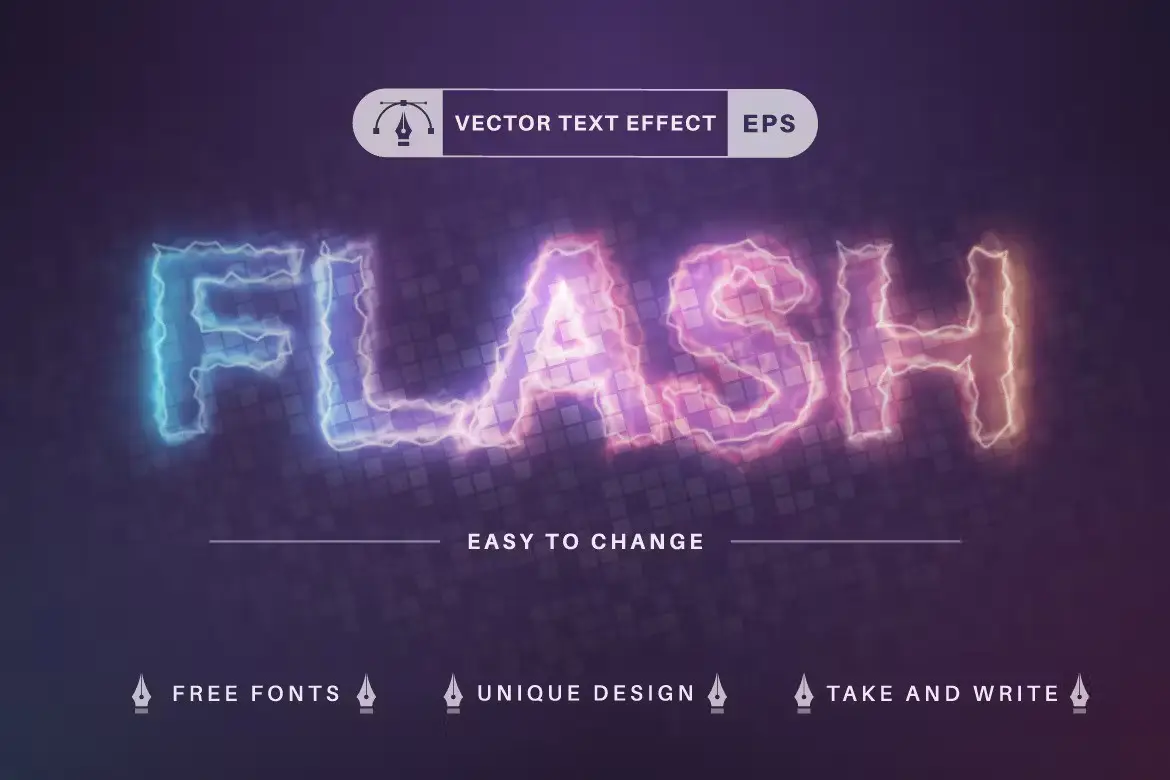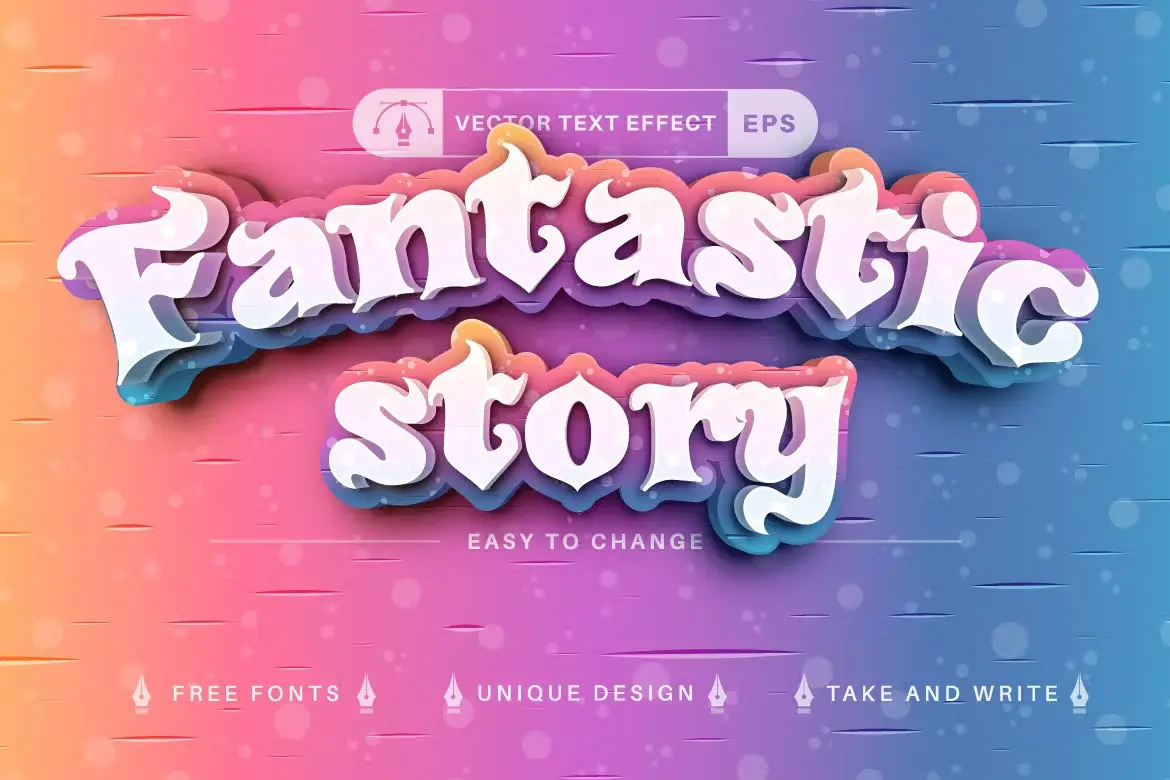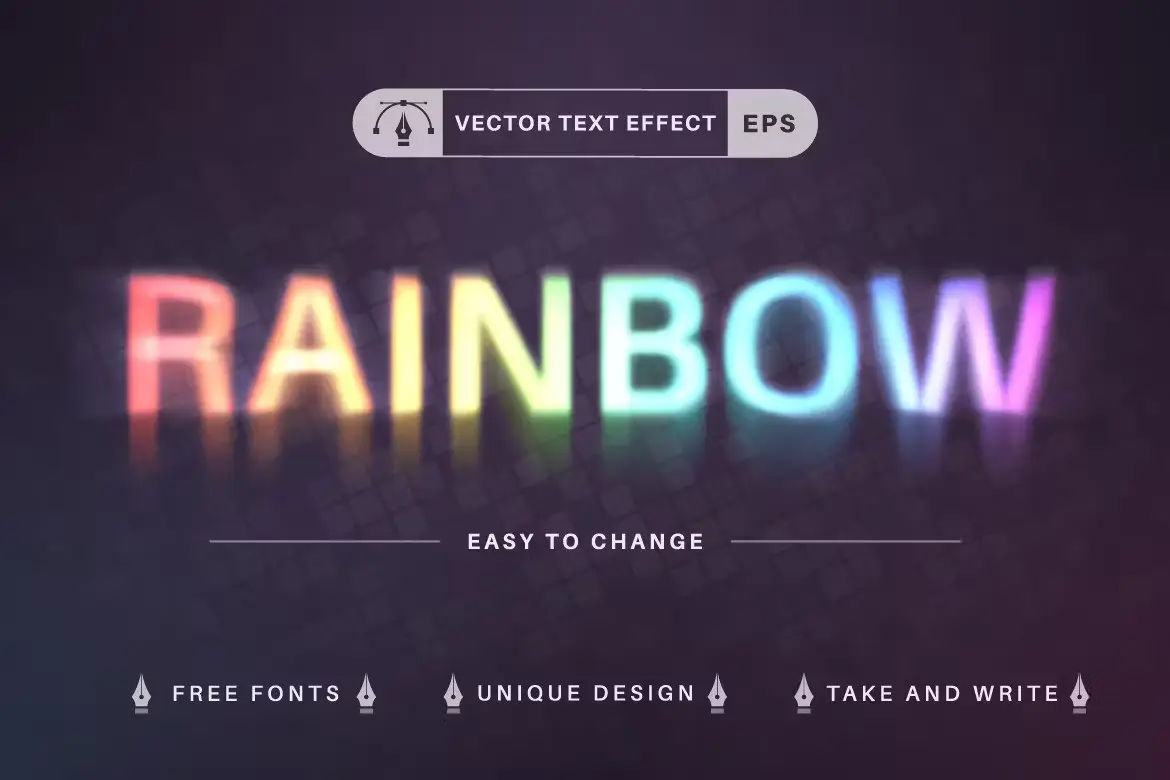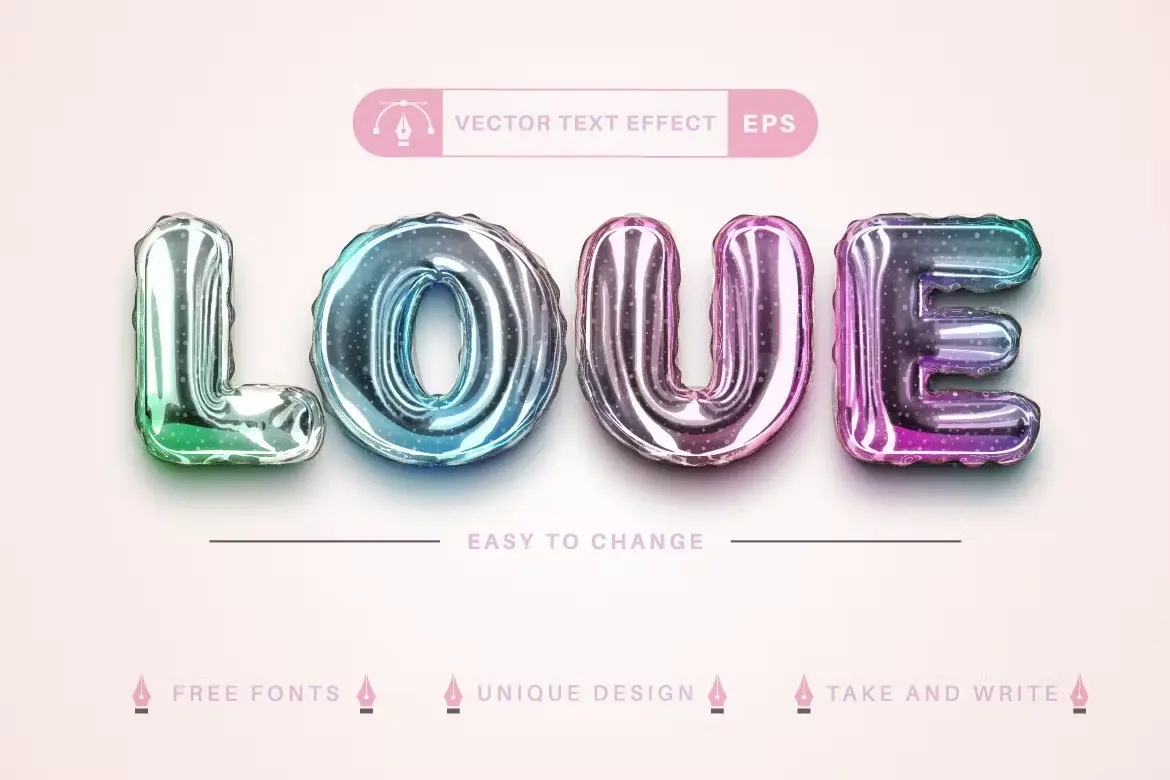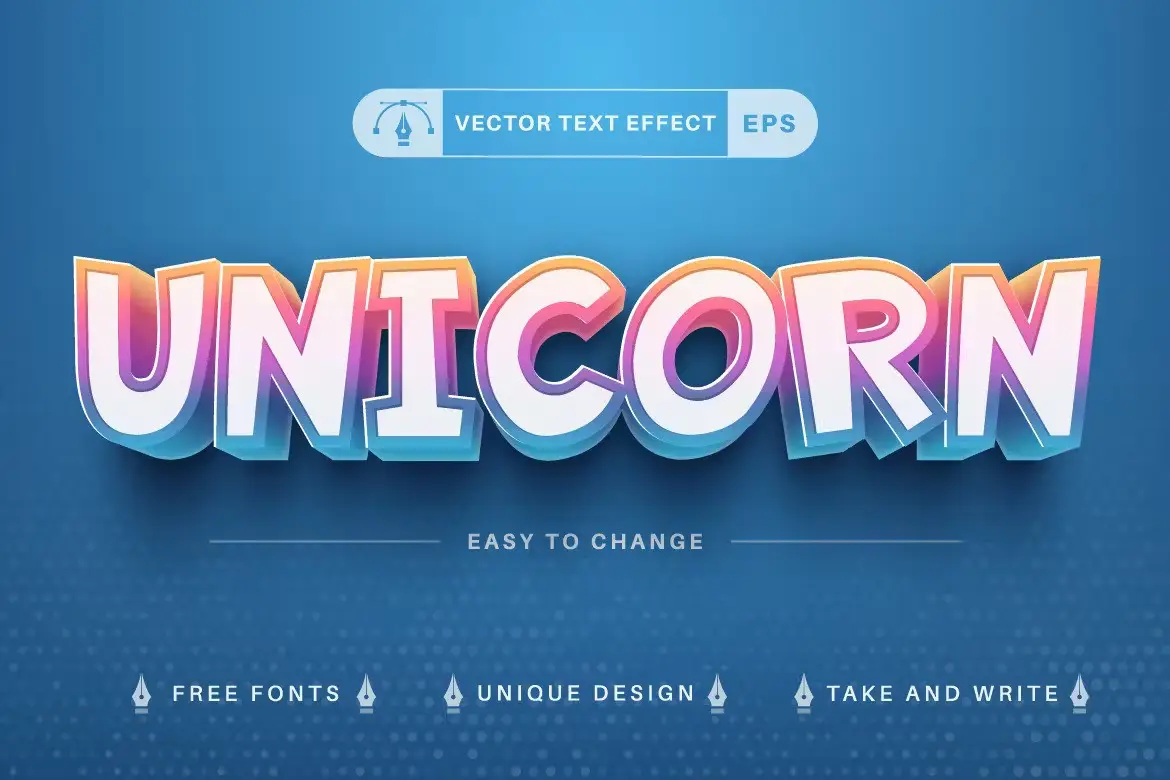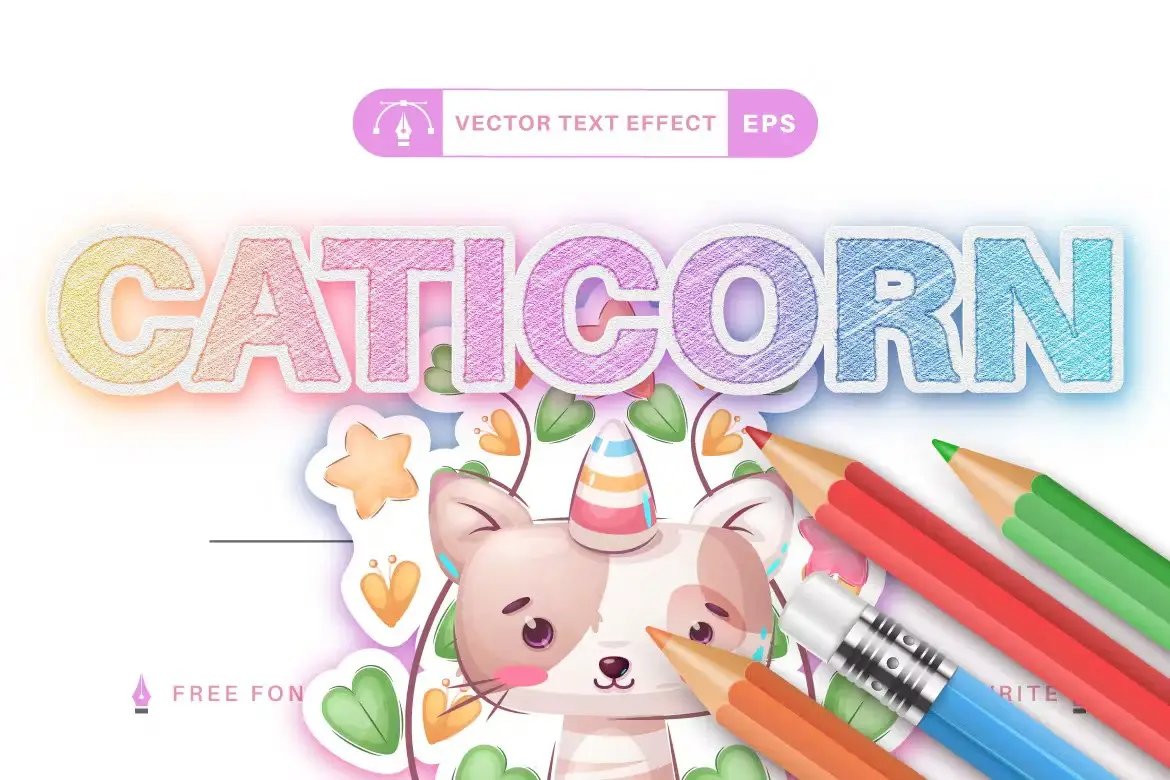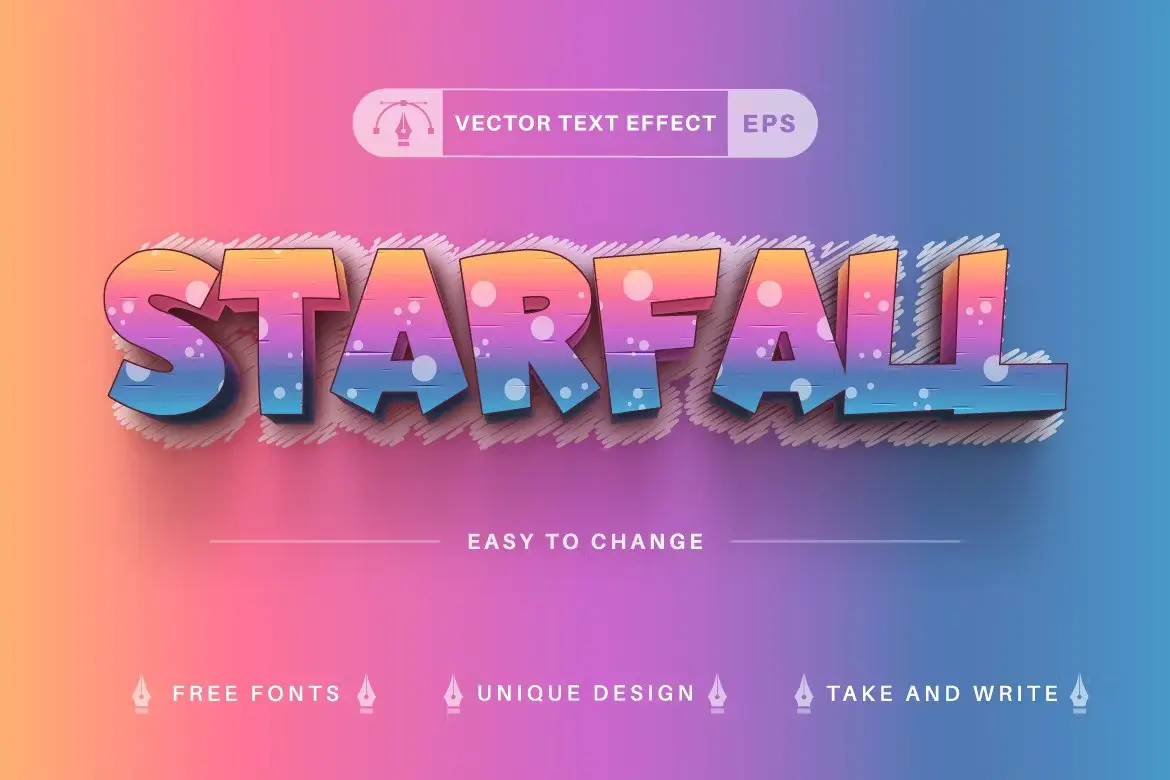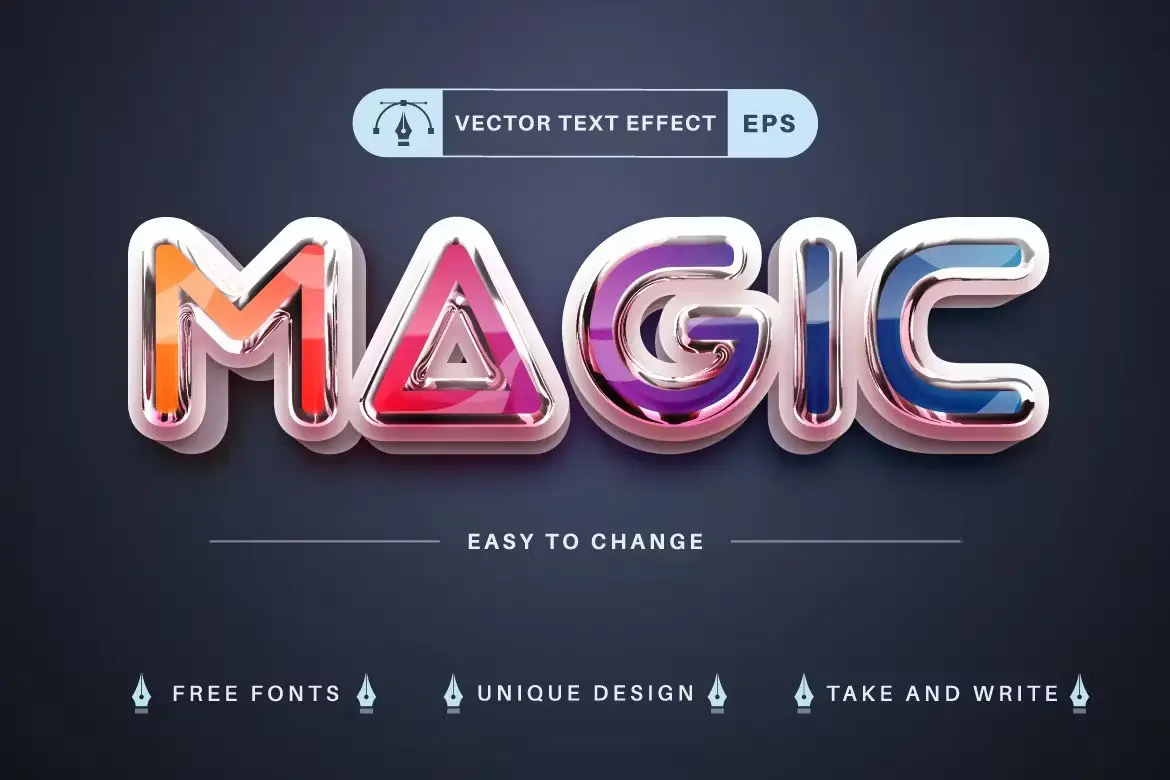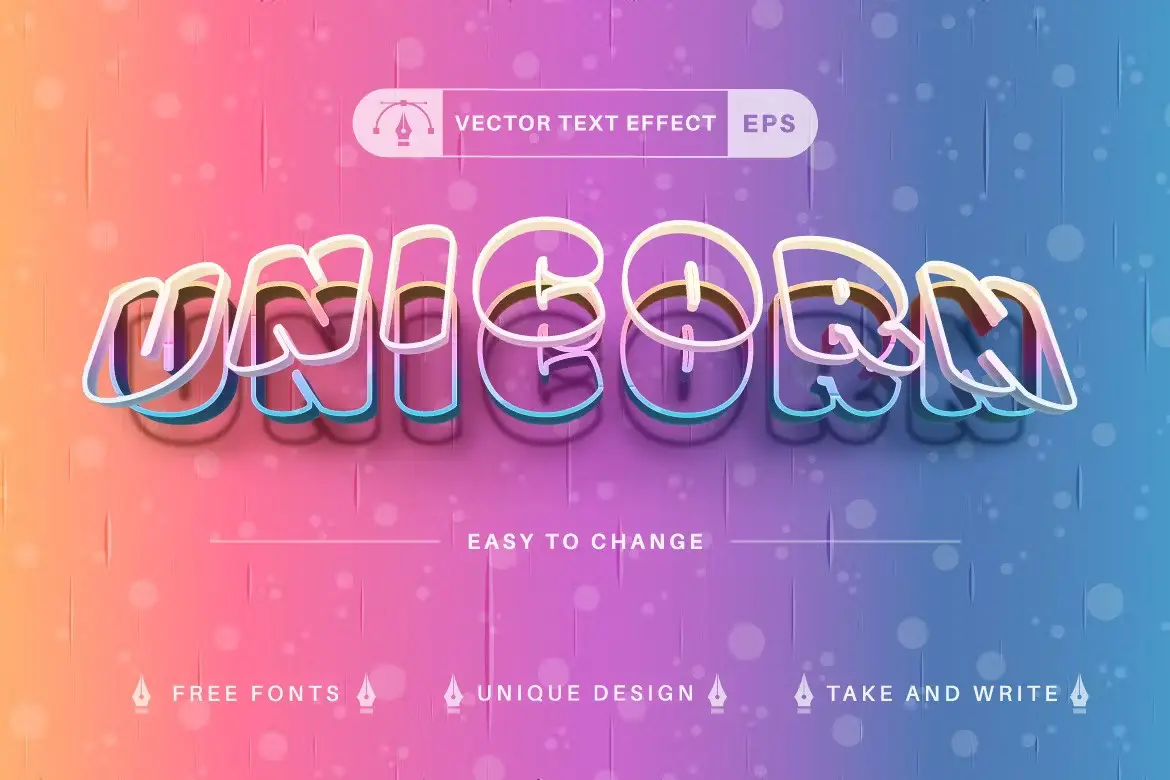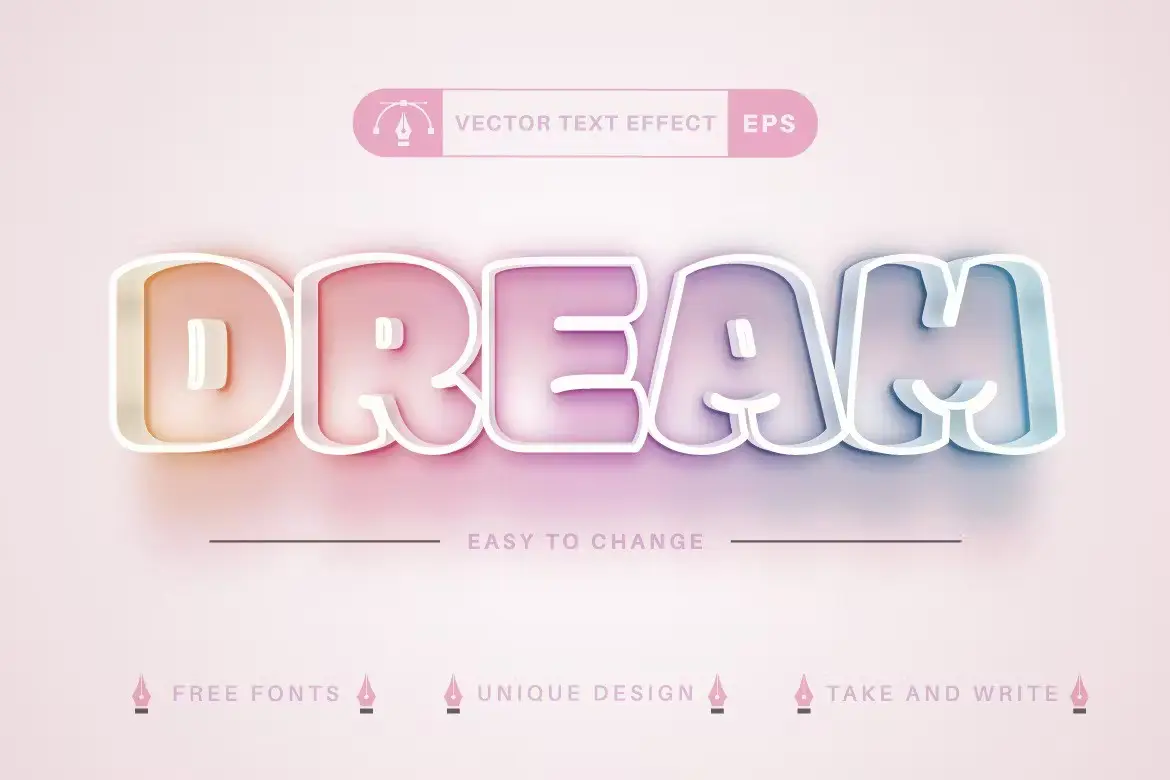
Set 10 Unicorn Editable Text Effects, Font Styles
Unleash your creativity with our Set 10 Unicorn Editable Text Effects. Designed for those who seek to add a magical touch to their projects, these unique font styles allow you to express your imagination effortlessly. Whether you’re working on a fantasy-themed design or a vibrant project, these text effects will elevate your work to new heights!
This collection features 10 stunning vector text effects that transform any word into a whimsical masterpiece. Perfect for designers, illustrators, and anyone looking to add a sprinkle of magic to their creations, these effects are versatile and easy to use.
- ✅ 10 Unique Text Effects → Perfect for creating enchanting designs that capture attention.
- ✅ Easy to Edit → Customize each effect to suit your project’s needs effortlessly.
This set of text effects is not just about aesthetics; it’s about enhancing your creative process. With these unicorn-themed styles, you can easily add a unique flair to invitations, posters, social media graphics, and more. Trusted by designers worldwide, these effects are designed to inspire and elevate your work.